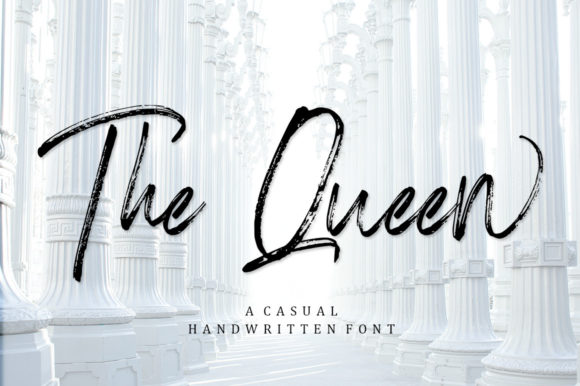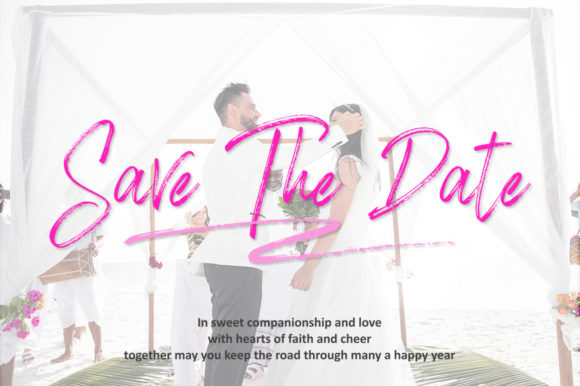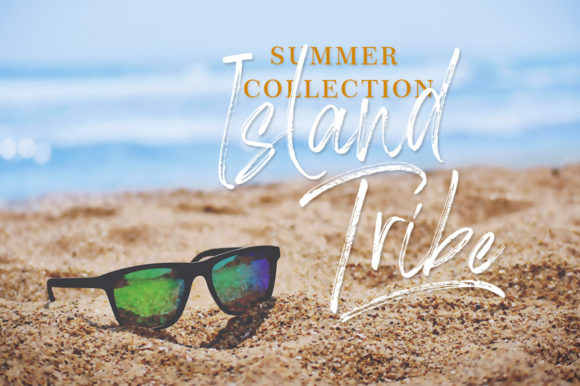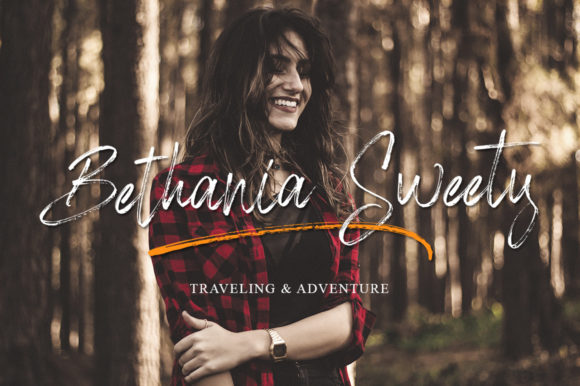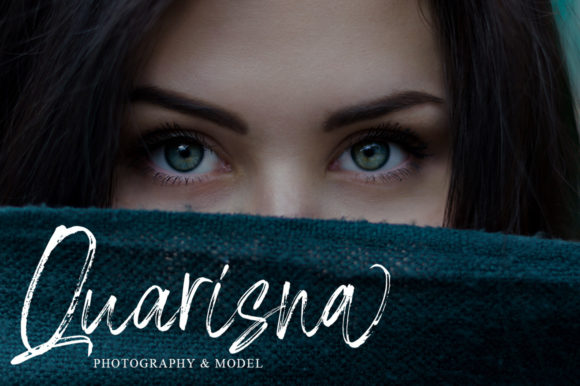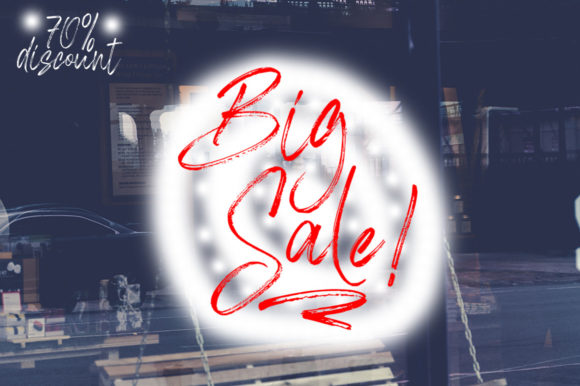
The Queen Font
About The Queen Font
The Queen is a casual and brushed script font that exudes elegance and class. This font was particularly crafted for those who need a beautiful and refreshing look to their designs.